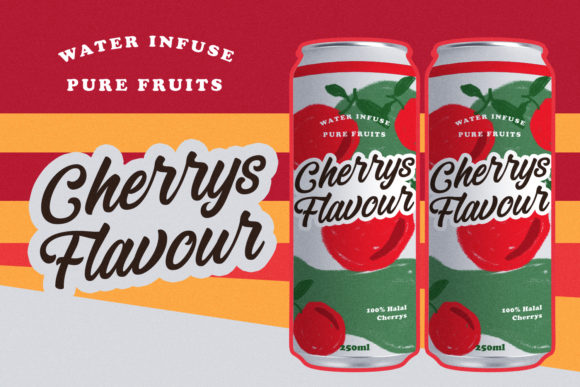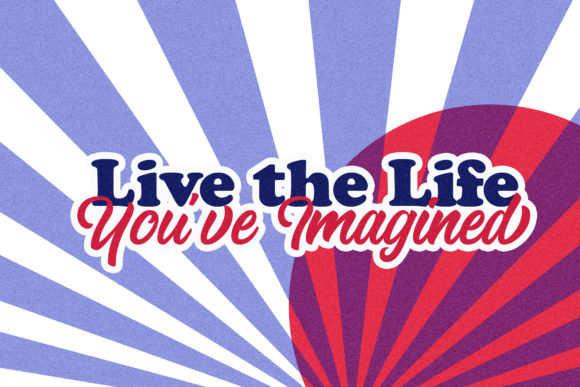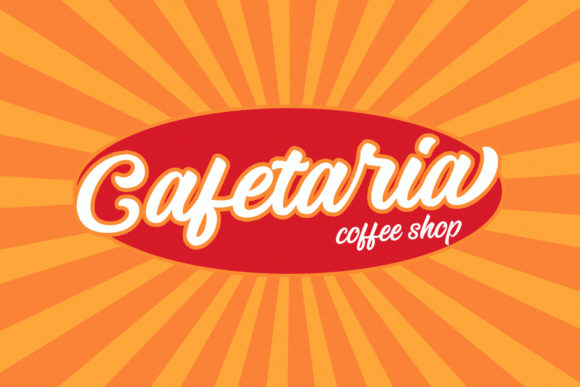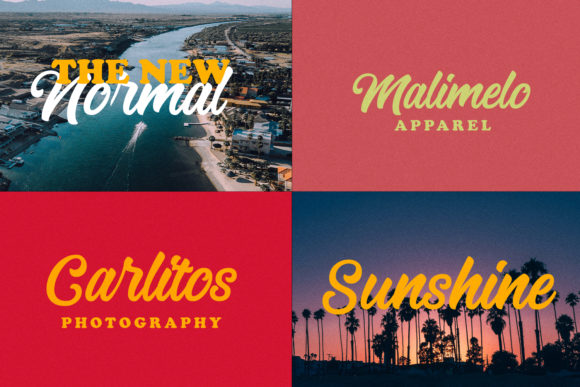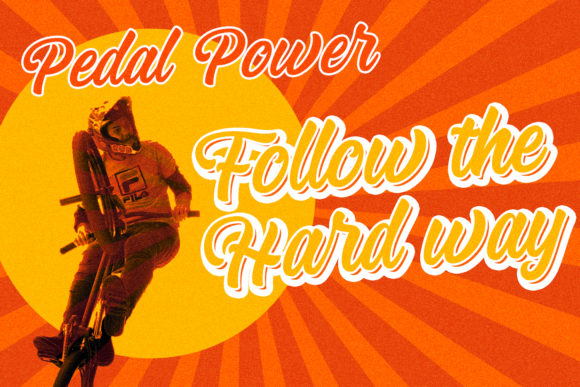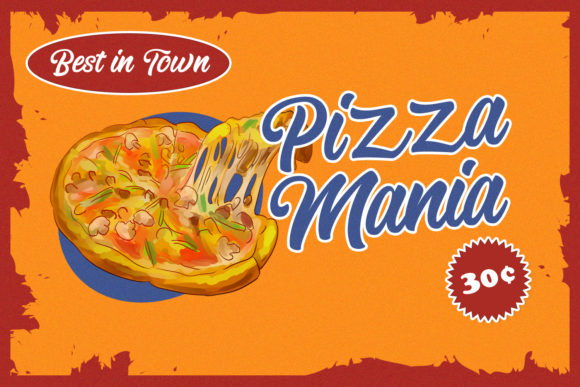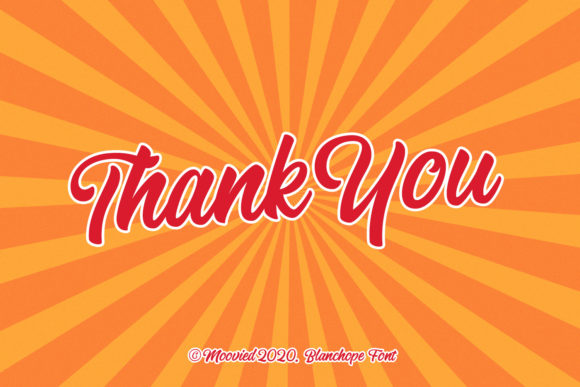
Blanchope Font
About Blanchope Font
Blanchope is a beautiful script font. This great font is inspired by classic typography and brings its own unique style to any design project. Blanchope will look outstanding in any context, whether it’s being used on busy backgrounds or as a standalone headline!